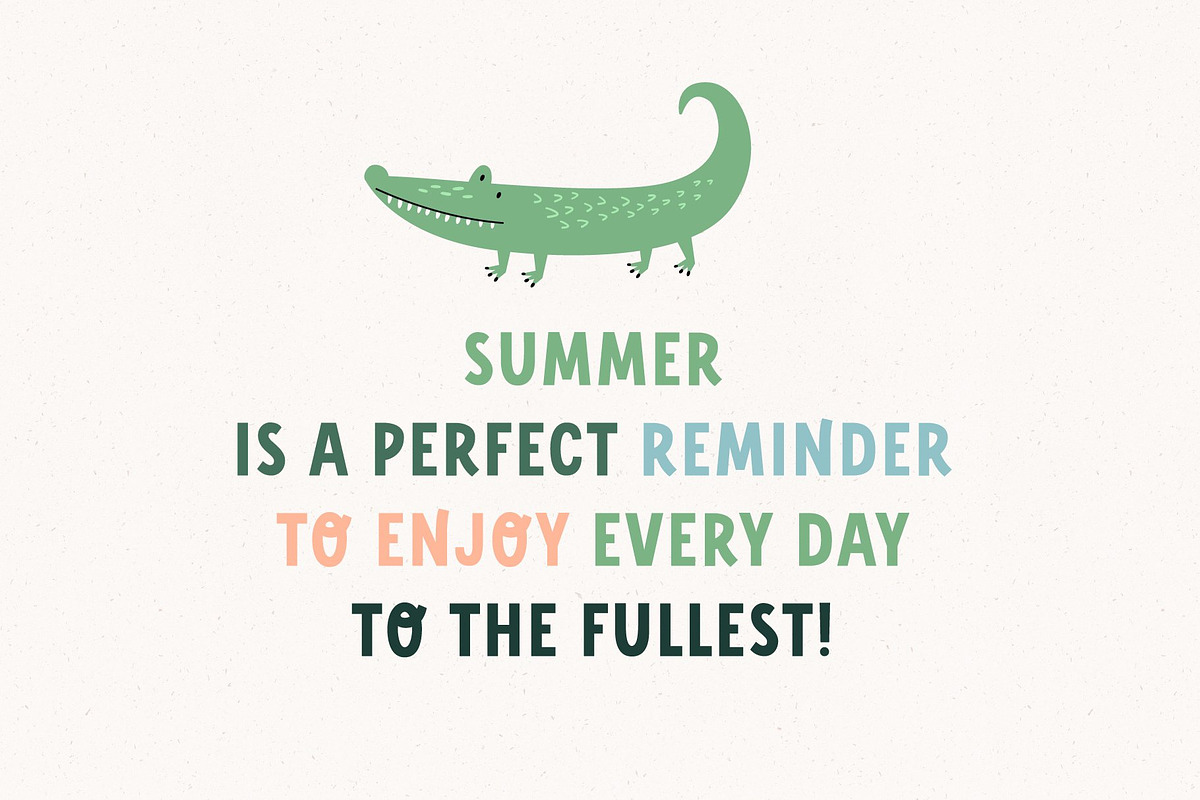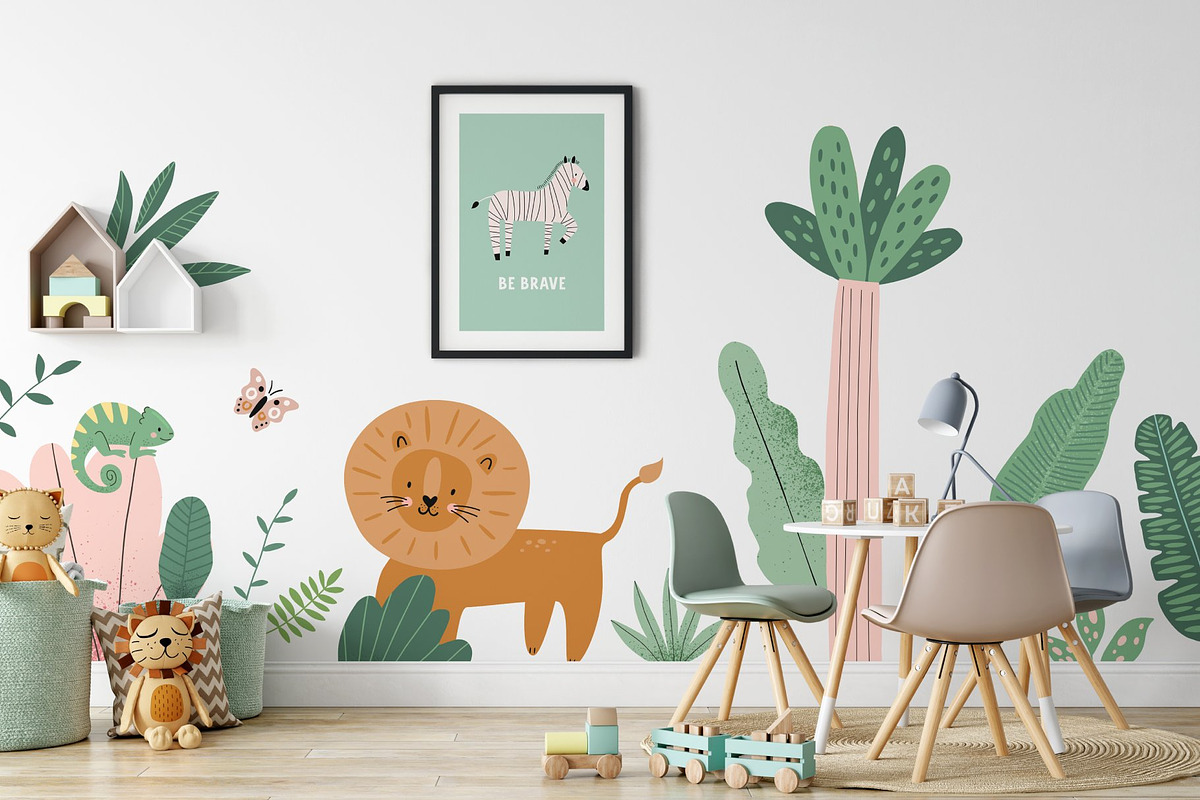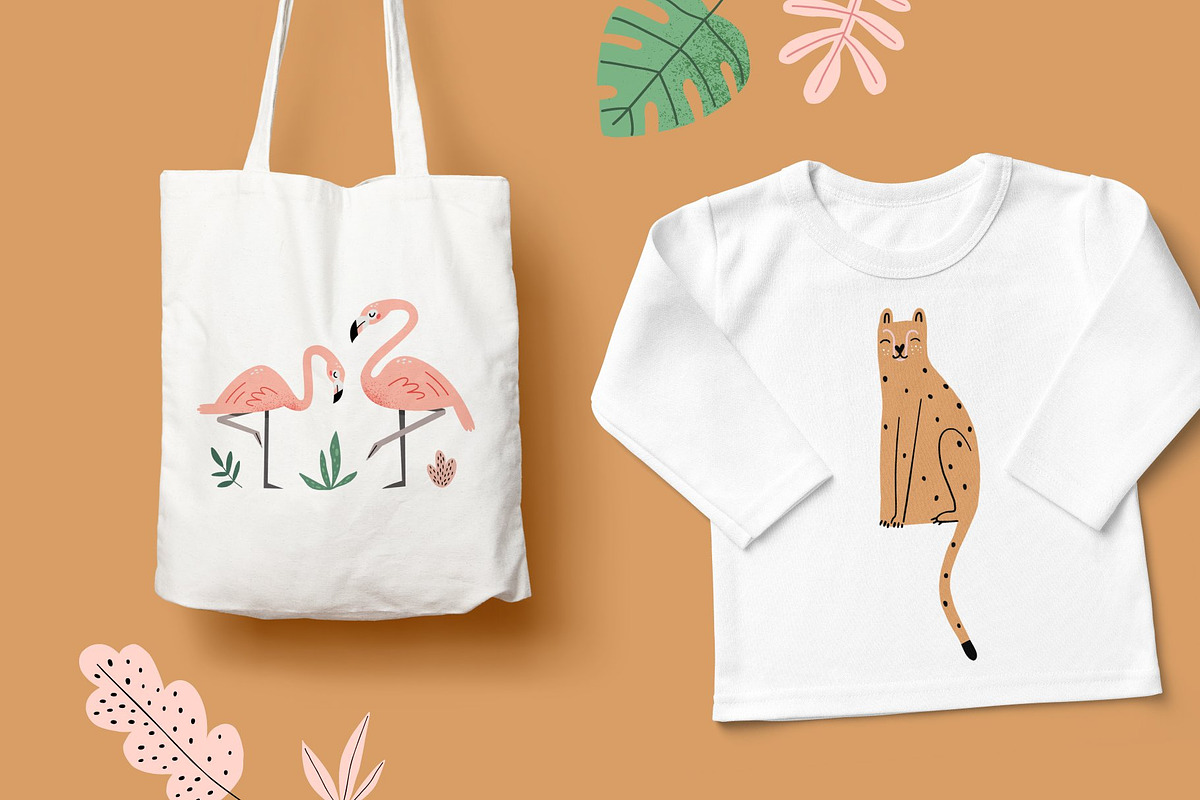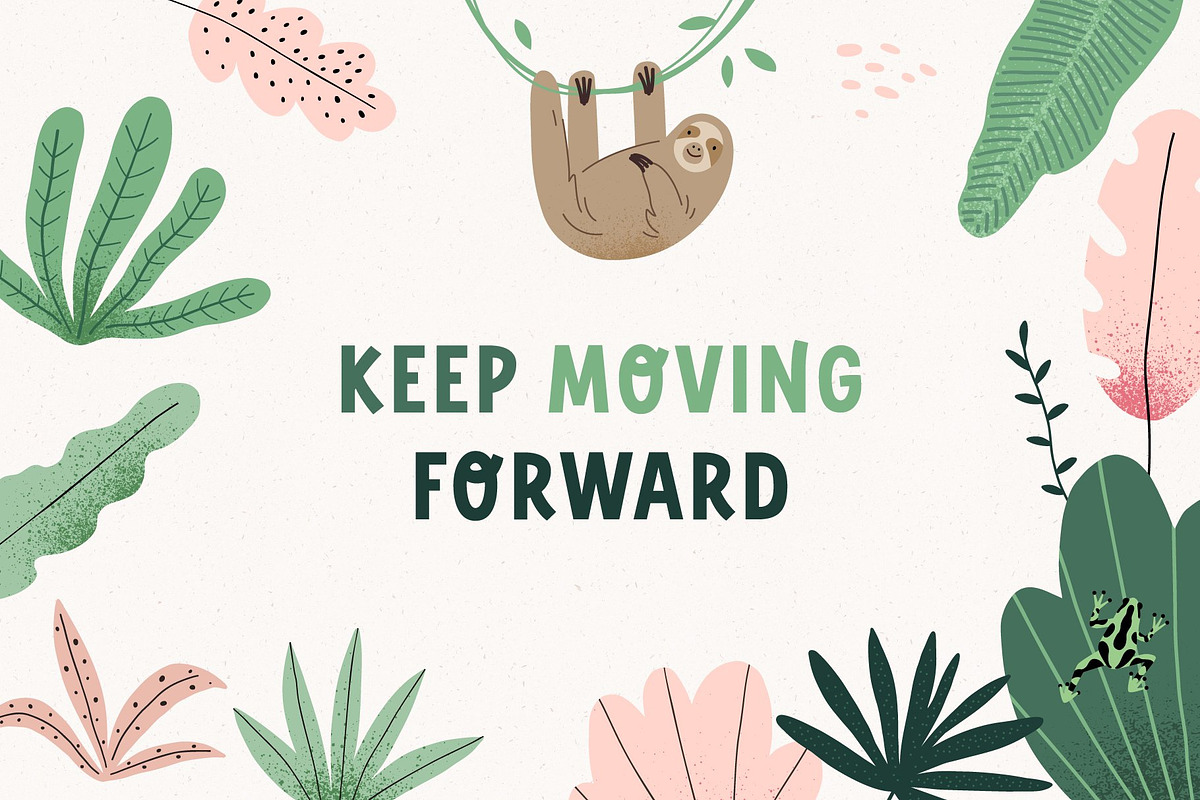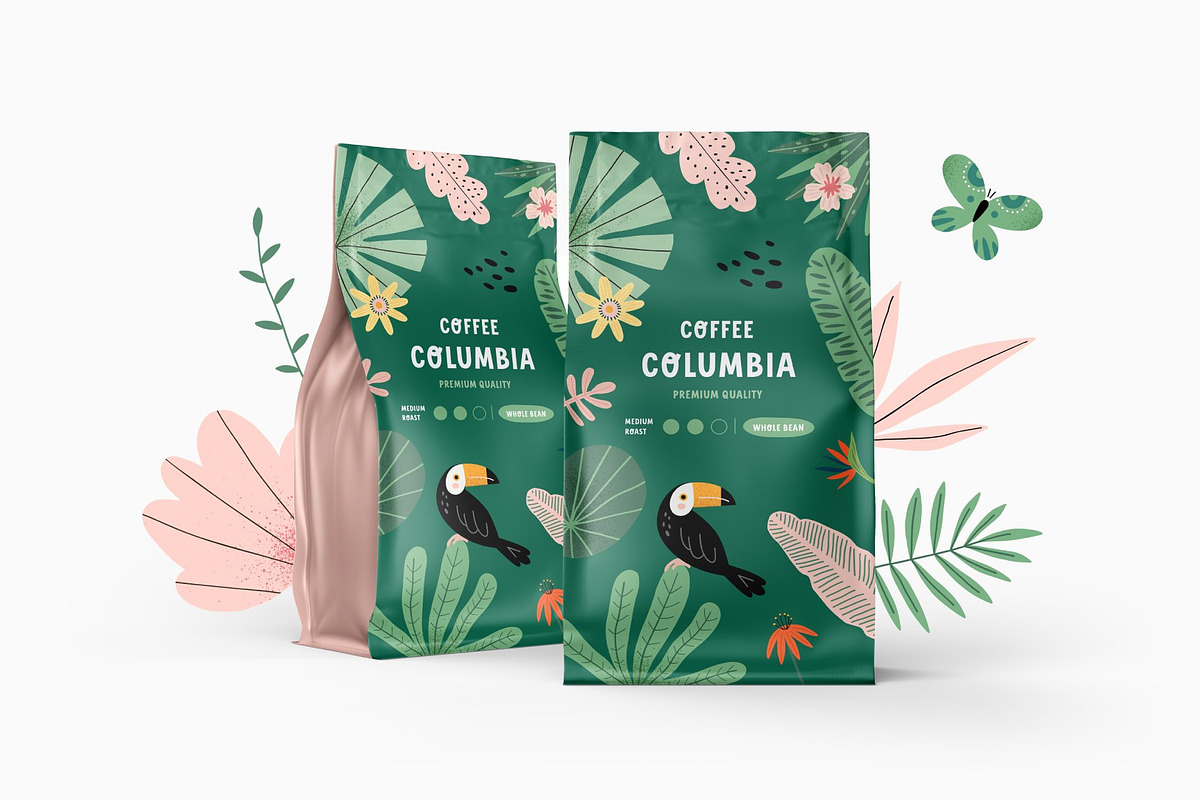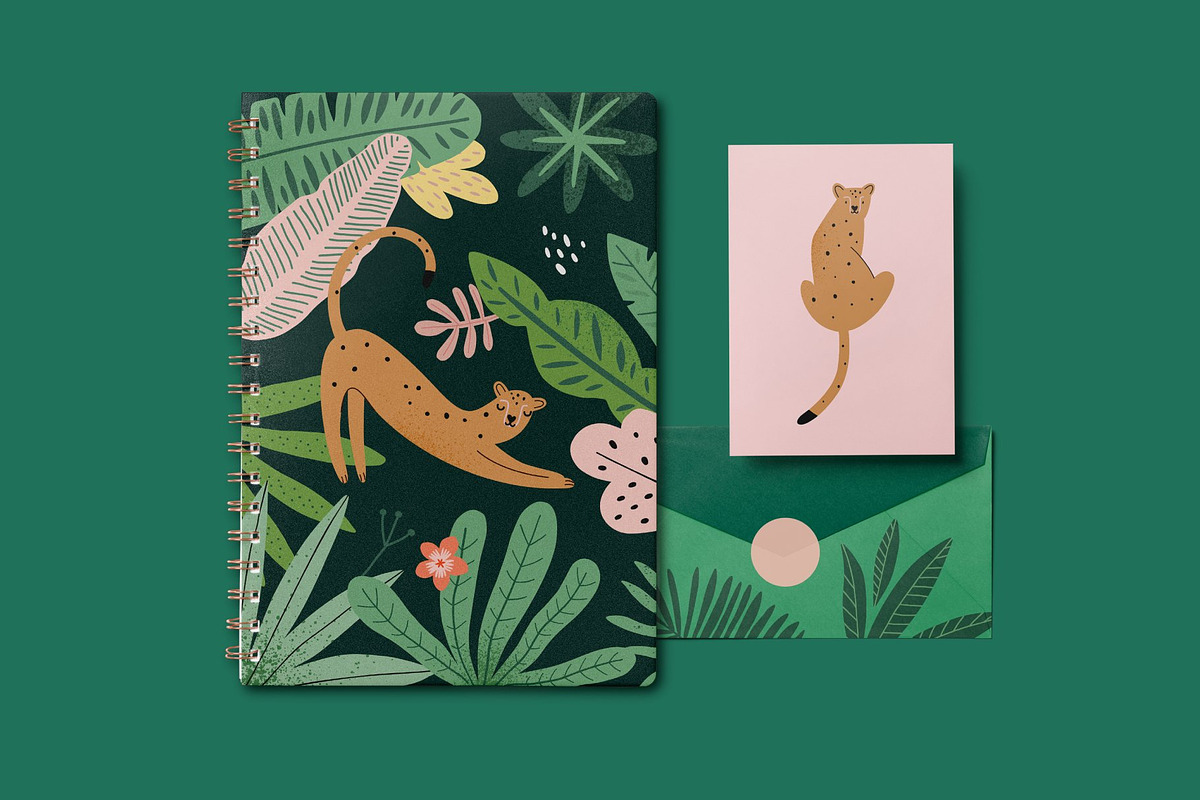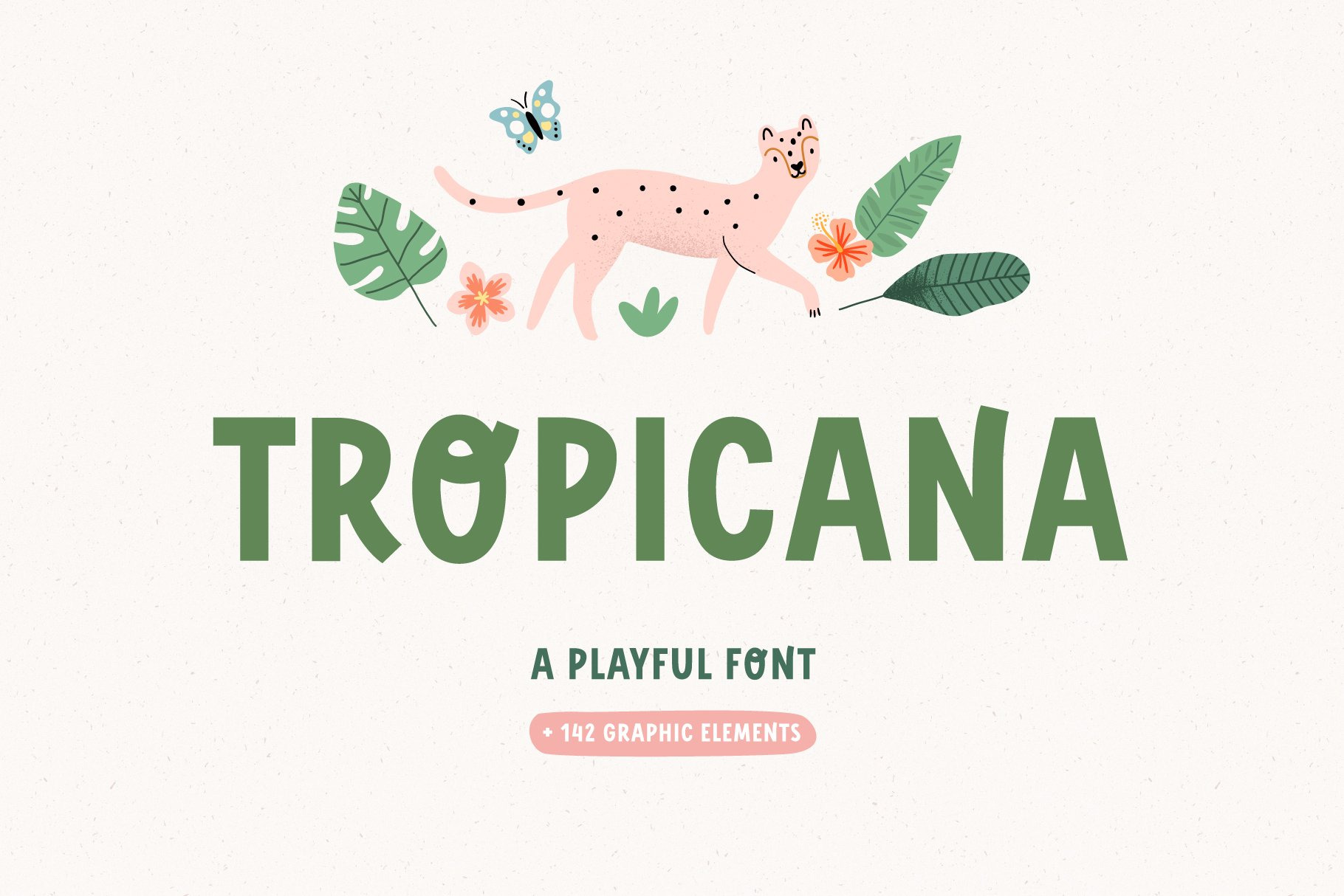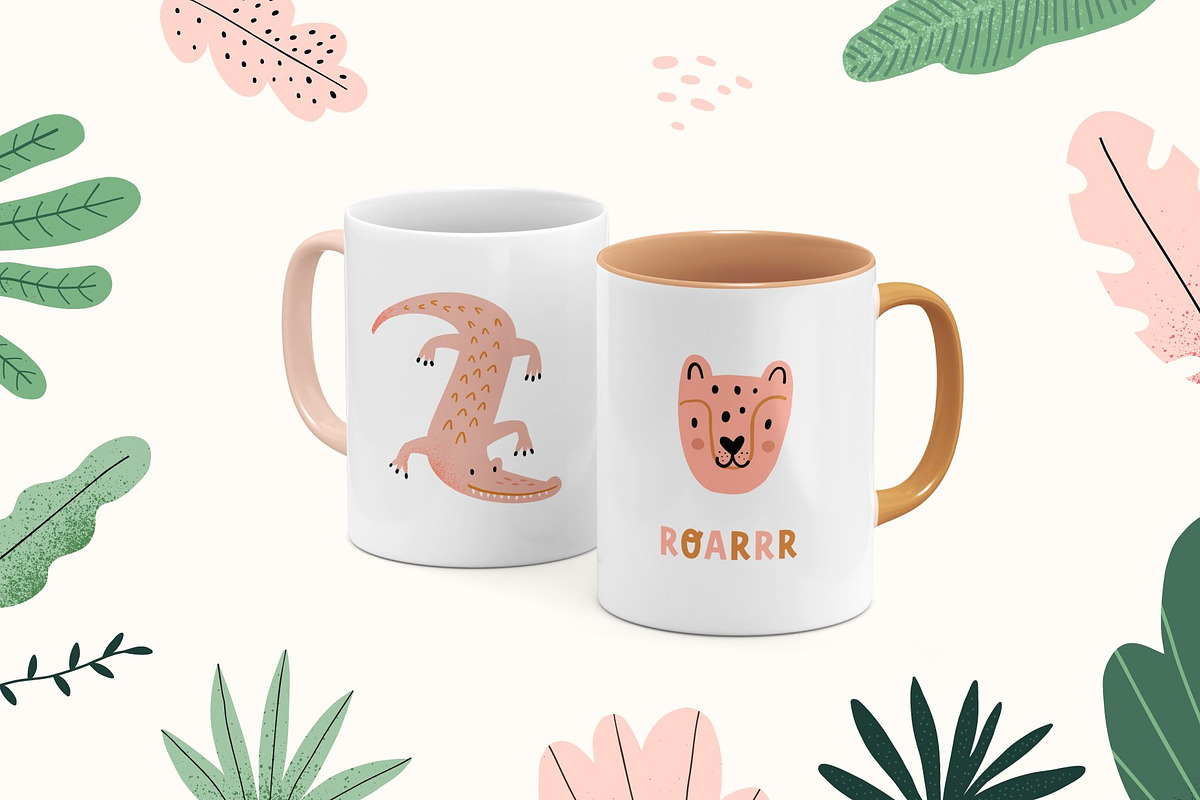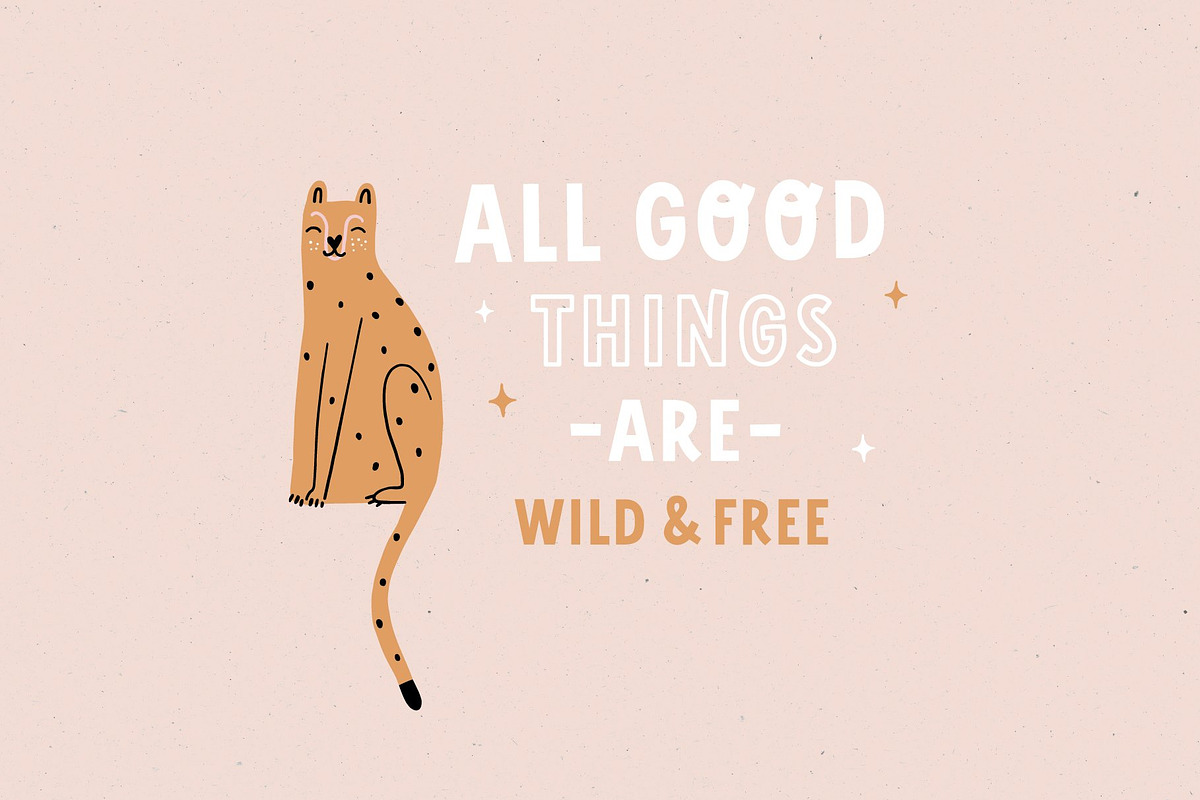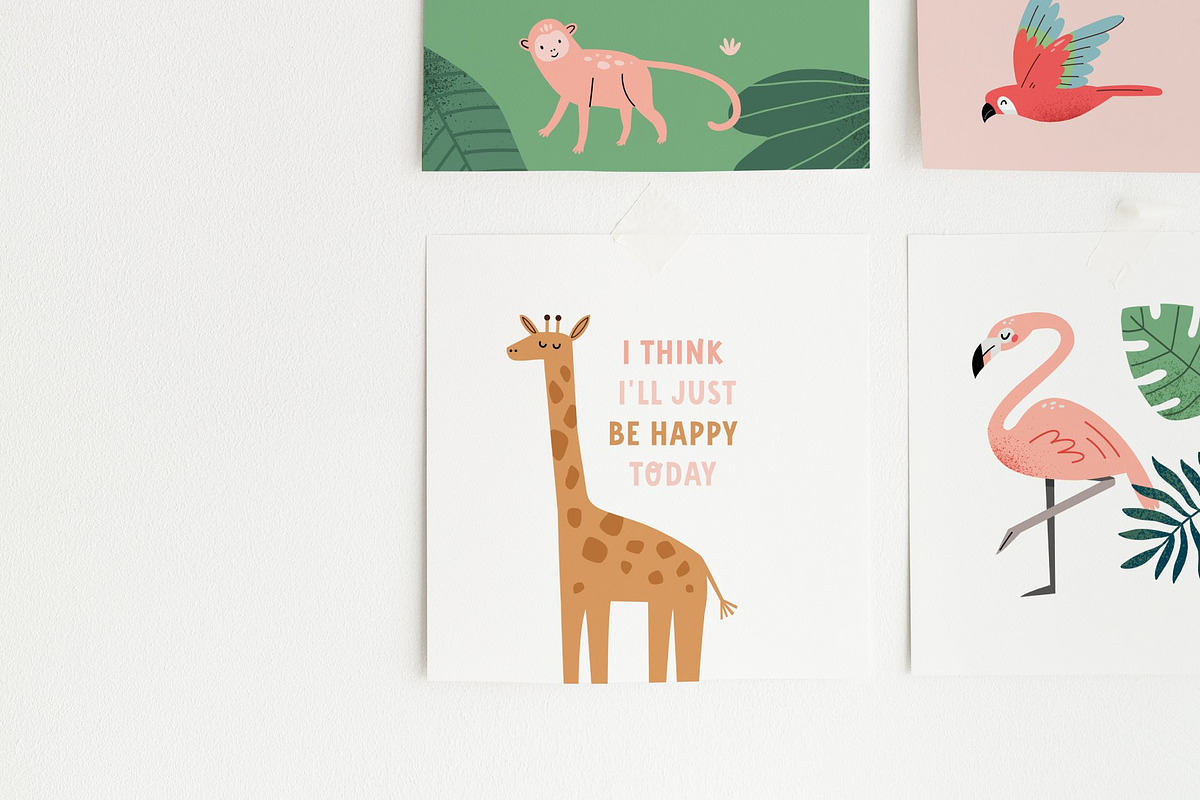
TROPICANA | Playful font
TROPICANA- a super fun and playful bold typeface. It is perfect for headings, flyer, greeting cards, product packaging, book cover, printed quotes, logotype, apparel design, album covers, etc.